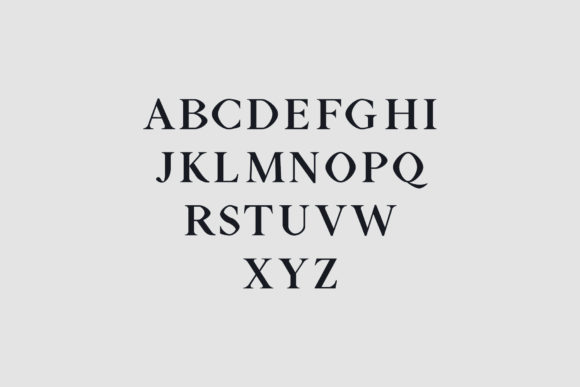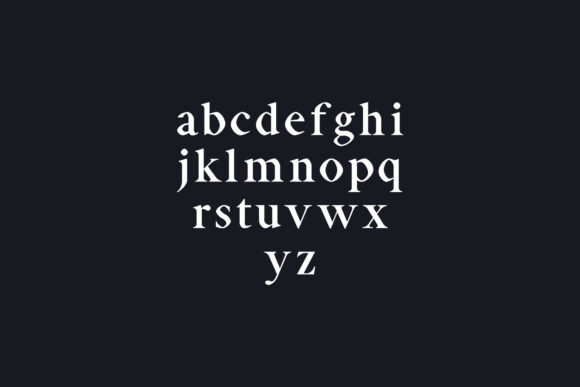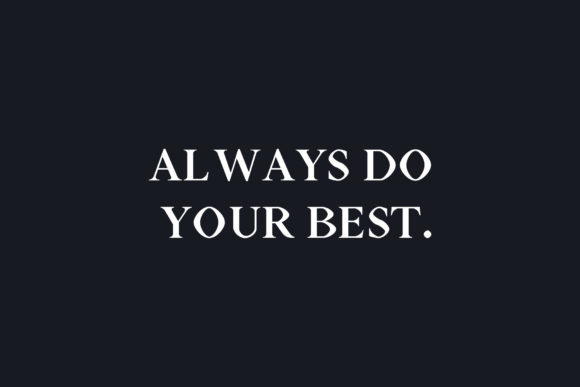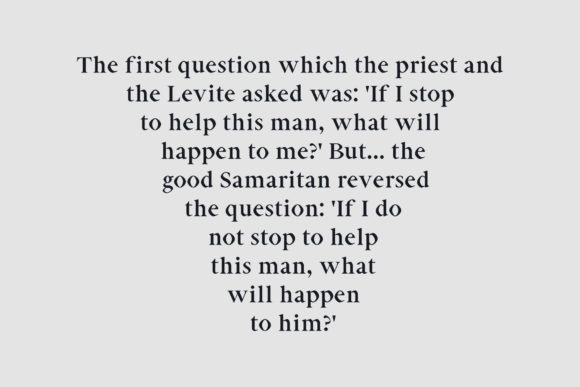
The Perfect Harmony of Elegance and Modernity
Have you ever been browsing through a bookstore and stumbled upon a beautifully designed book cover that caught your eye? The typography, the color palette, the entire design just spoke to you on a deeper level. For many designers, this moment is a reminder of the power of great typography in capturing our attention and evoking emotions.
Enter the Aara Family Font, a creative and modern serif font family that embodies the perfect blend of elegance and modernity. Designed with a touch of timelessness, Aara Family Font is a versatile typeface that can elevate your designs for book covers, movies, magazines, fashion designs, branding, stationery, and more.
For designers, the Aara Family Font is a valuable asset in their toolkit. Its unique character and refined features make it an ideal choice for creating stunning designs that leave a lasting impression. Whether you’re a seasoned pro or just starting out, Aara Family Font is a great addition to your design arsenal.
Aara Family Font Key Features
- Font Family: Aara Family is a comprehensive font family consisting of 4 fonts: Aara Regular, Aara Italic, Aara Bold, and Aara Bold Italic.
- Language Support: Aara Family supports a wide range of languages, including Latin, Cyrillic, and Greek scripts, making it an ideal choice for global applications.
- Unique Characteristics: Aara Family features a unique blend of modern and traditional design elements, resulting in a distinctive and sophisticated typographic style.
Aara Family Font Review
As a designer, I was excited to dive into the Aara Family Font. At first glance, I was charmed by its elegant and sophisticated aesthetic. The font’s curved lines and subtle nuances ✨ add a touch of whimsy and romance, making it perfect for projects that require a delicate yet distinctive feel.
The Aara Family Font is also incredibly versatile, with a wide range of weights and styles to choose from. This makes it ideal for a variety of design projects, from branding and advertising to publishing and editorial design.
⚠️ The Aara Family Font can be a bit overly ornate at times, which may make it challenging to read in certain contexts.
⚠️ Some of the font’s characters may not render well in certain digital environments, which could impact its overall effectiveness.
Overall, I think the Aara Family Font is a beautiful and unique addition to any designer’s toolkit. While it may have some limitations, its strengths far outweigh its weaknesses. I would definitely recommend it for projects that require a touch of elegance and sophistication.
The Aara Family Font is ideal for:
- Editorial and publishing designs
For the best results, use the Aara Family Font in combination with high-quality images and design elements.